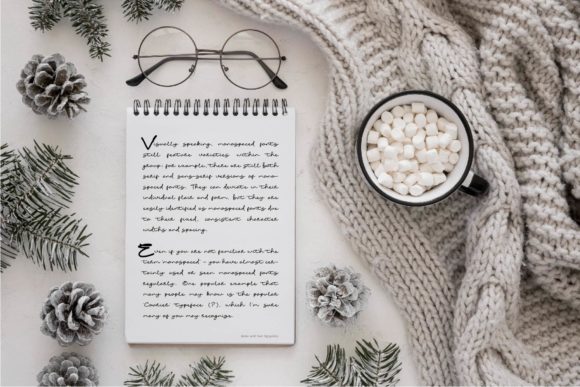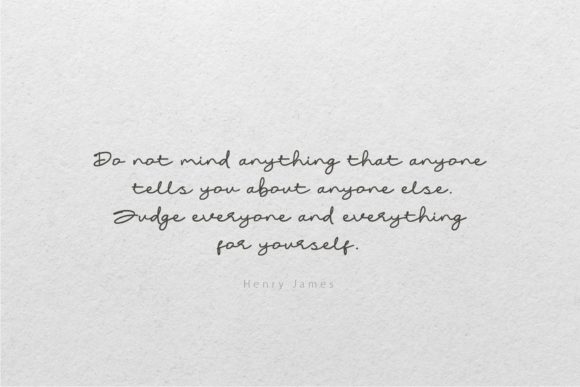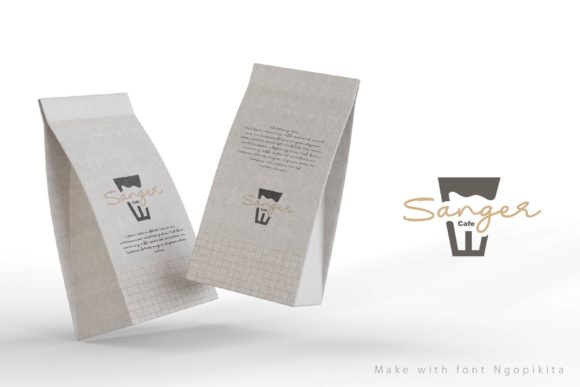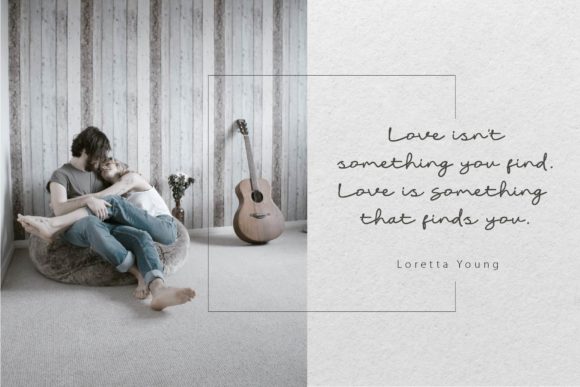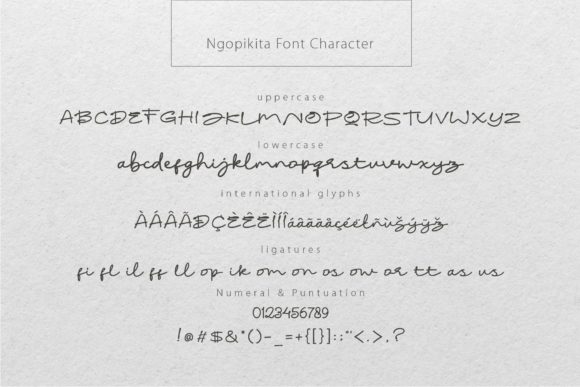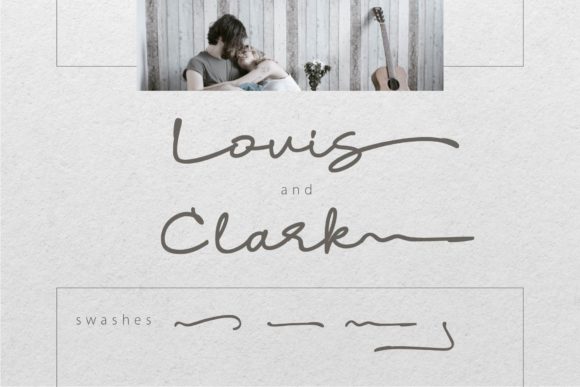
Introduction to Ngopikita Font
Have you ever found yourself scribbling down ideas on a blank page, only to have the scribbles turn into a beautiful, flowing handwritten script that perfectly captures the essence of your creative vision? For designers and artists, this moment of inspiration is a valuable one, and the right font can make all the difference. That’s where the Ngopikita Font comes in – a minimal and flowing handwritten font that’s designed to bring your ideas to life in the most realistic way possible.
With its PUA encoded design, accessing all the glyphs and swashes is a breeze, making it an ideal design resource for any creative project. Whether you’re working on a design project that requires a high-quality, handwritten font or simply need a unique touch for your next free download, Ngopikita Font is a valuable addition to your design arsenal.
Key Features of Ngopikita Font
- Ngopikita Font offers a unique blend of modern and vintage styles, making it a versatile design resource for various creative projects.
- Designed with a focus on readability and aesthetic appeal, making it an excellent choice for use in logos, branding, and other design elements.
Honest Review: Ngopikita Font
I recently had the opportunity to work with the Ngopikita Font, and I must say it’s a solid addition to any designer’s toolkit. This high-quality font is perfect for those looking to elevate their creative project with a unique and stylish touch.
- ⚠️ Limited font styles and variations, which may not be suitable for complex design projects
Overall, I’m impressed with the Ngopikita Font’s versatility and ease of use. While it may not be the perfect solution for every design project, it’s certainly a valuable resource for designers looking to add a touch of sophistication to their work.
Tips for Getting the Most Out of Ngopikita Font
To maximize the potential of the Ngopikita Font, experiment with different font sizes, styles, and colors to create a unique and engaging design. Consider combining the font with other design elements, such as images or graphics, to add visual interest and depth to your creative project.
Common Use Cases for Ngopikita Font
The Ngopikita Font is suitable for a wide range of creative projects, including business presentations, marketing materials, and social media graphics. Its high-quality design and transparent background make it an ideal choice for designers seeking a versatile and effective font resource.